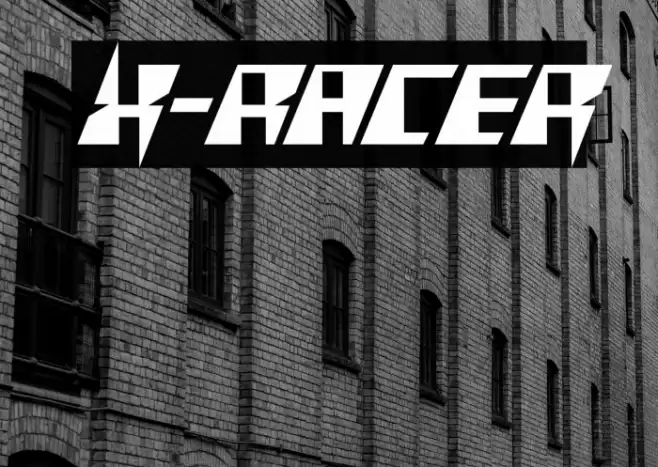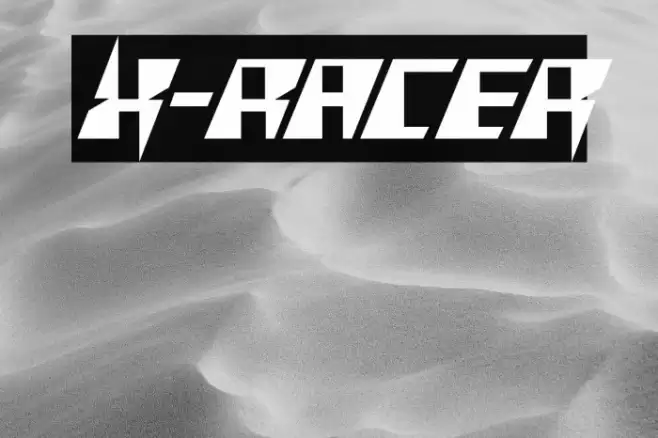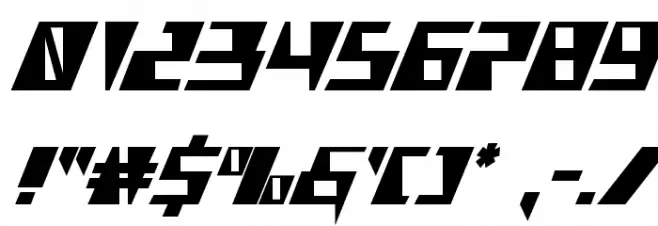
X-Racer Font
X-Racer Description
This font features a bold, angular design with sharp edges and a futuristic aesthetic. The characters are constructed with a distinct slant, giving them a sense of motion and speed. The uppercase letters are particularly striking, with exaggerated angles and a dynamic form that suggests movement. The numbers and special characters maintain this theme, offering a cohesive look across all glyphs. The overall style is reminiscent of racing or high-speed technology, making it ideal for projects that require a modern and energetic feel.
A bold, angular font with a futuristic and dynamic design from Regular fonts.
- Proposed Projects: Ideal for use in automotive branding, video game titles, sports team logos, and any project requiring a modern, high-energy aesthetic.
- Use Case: Logos, Headlines, Branding